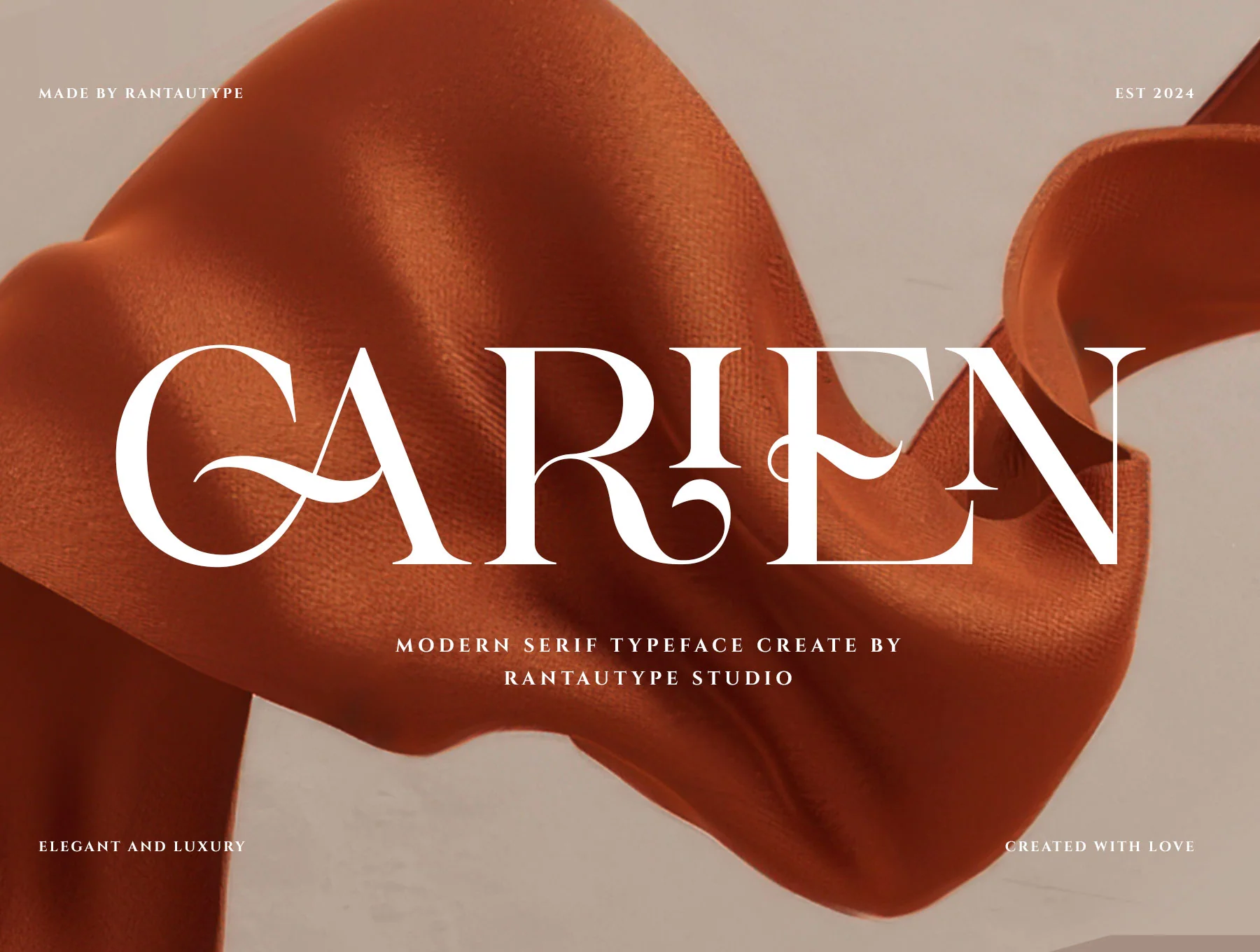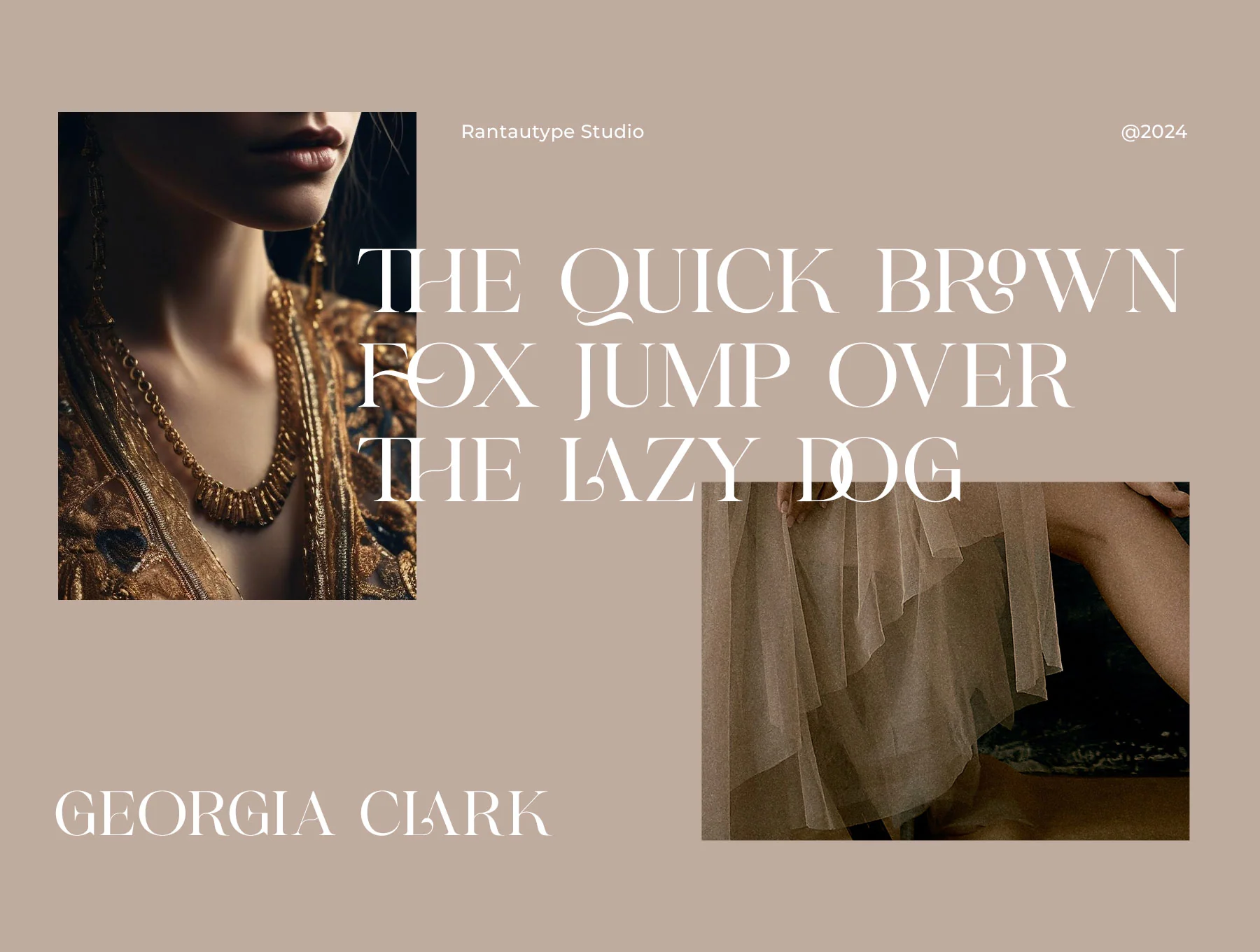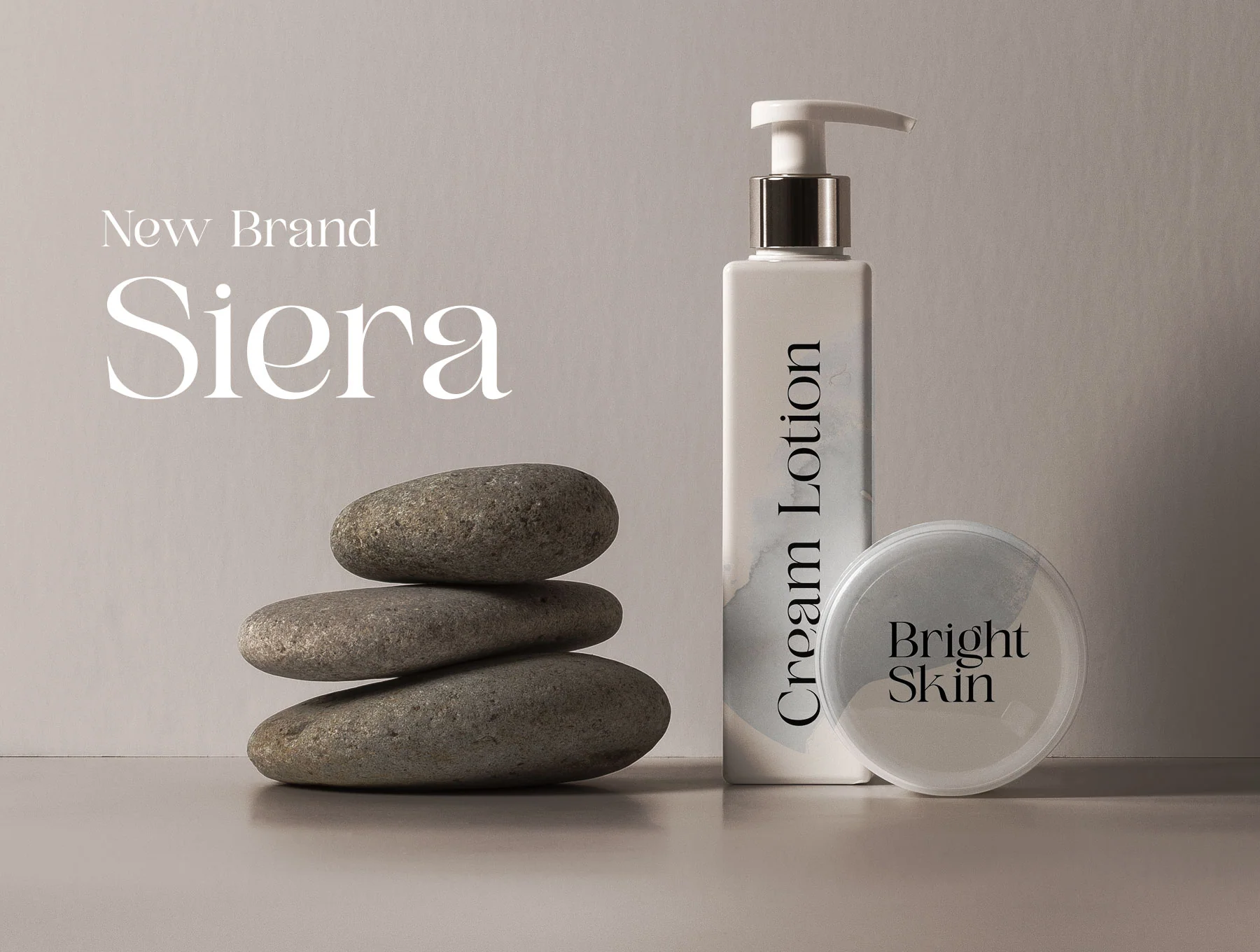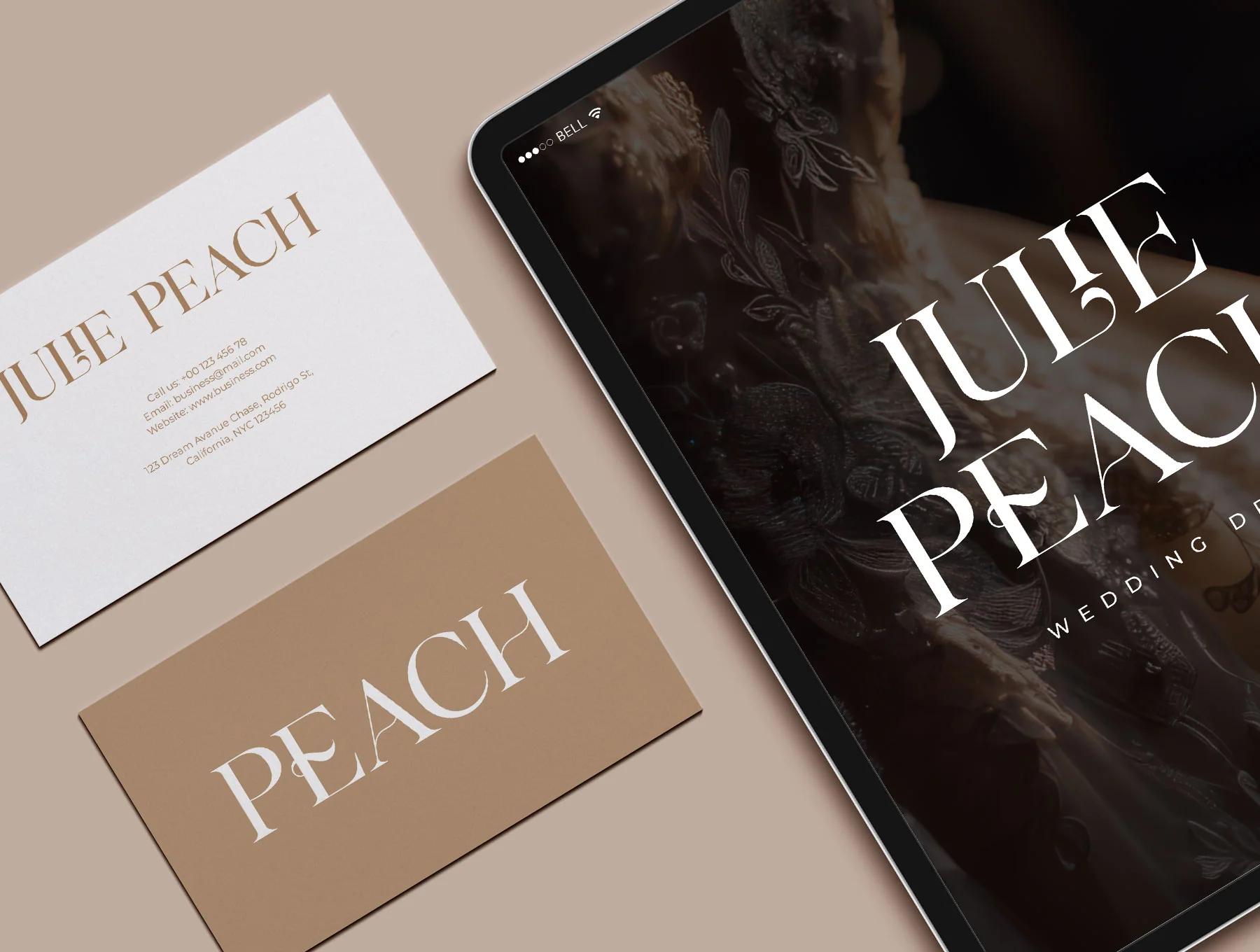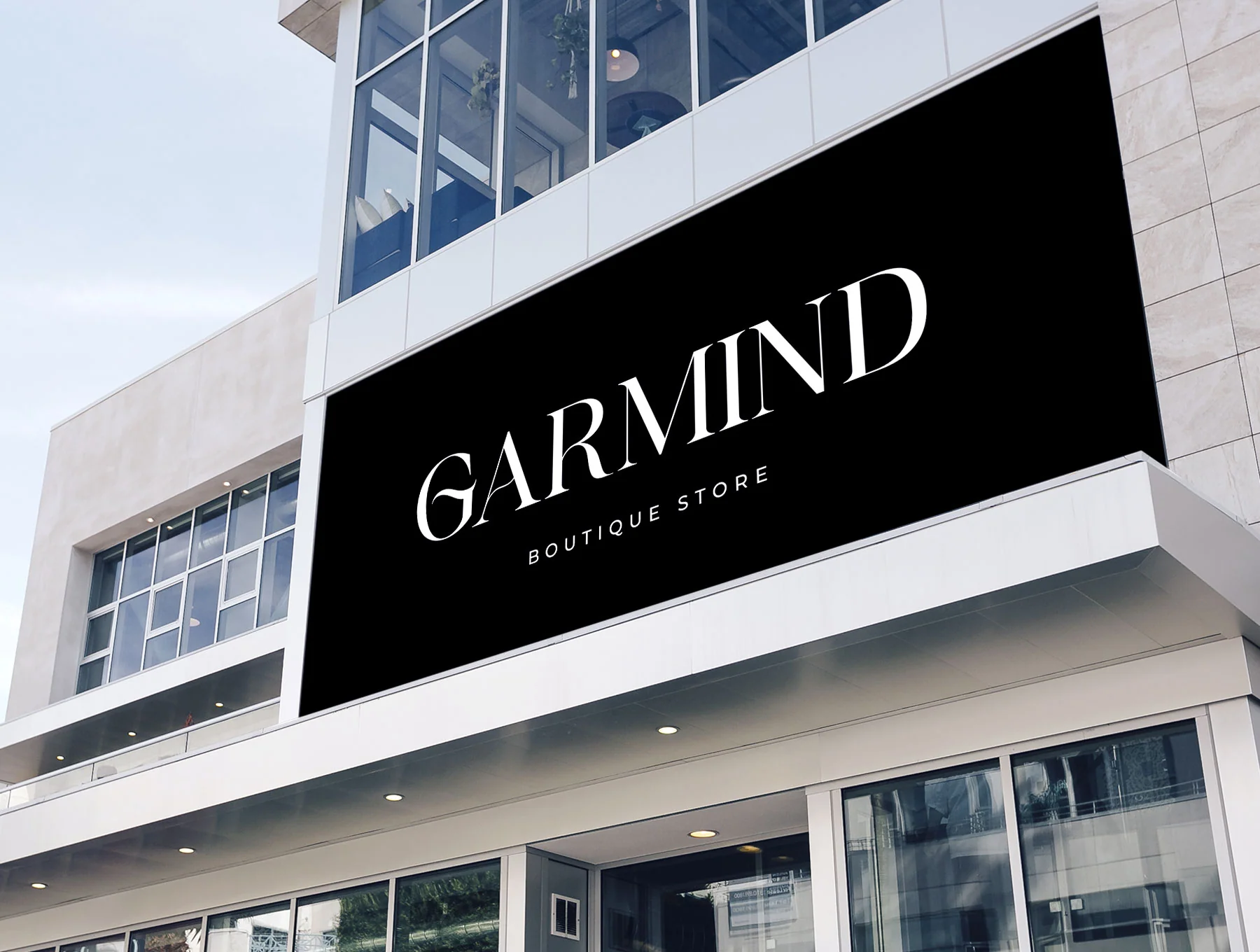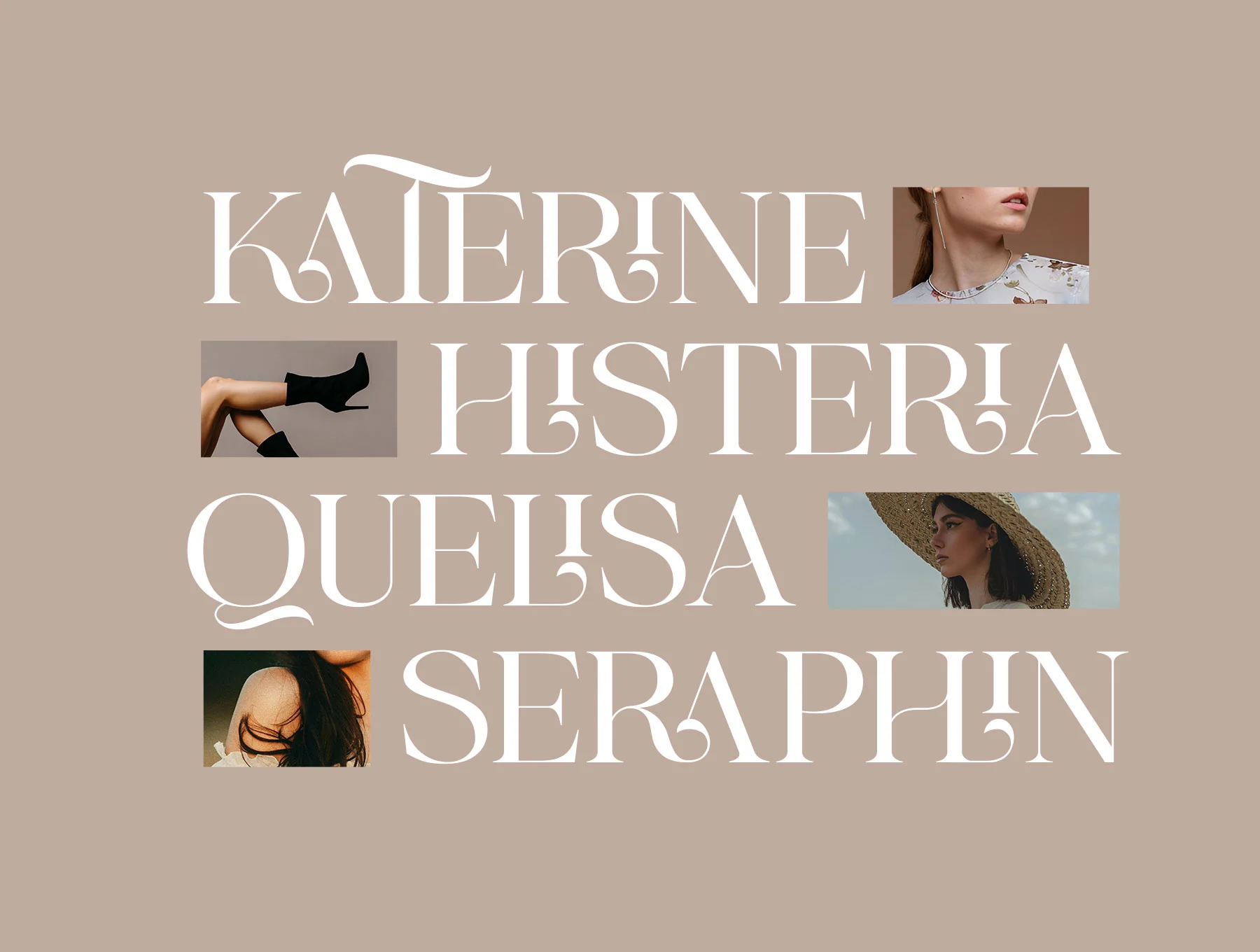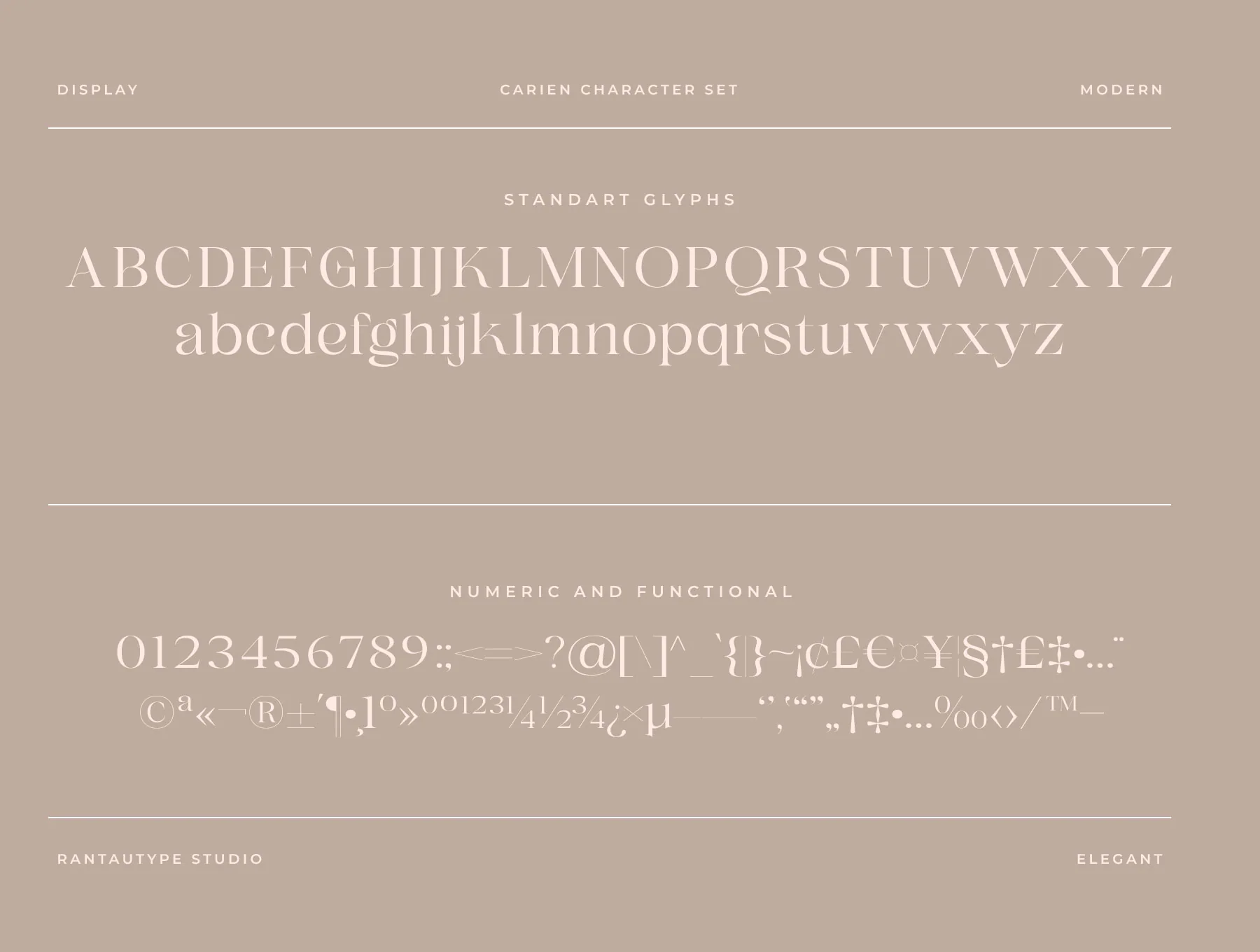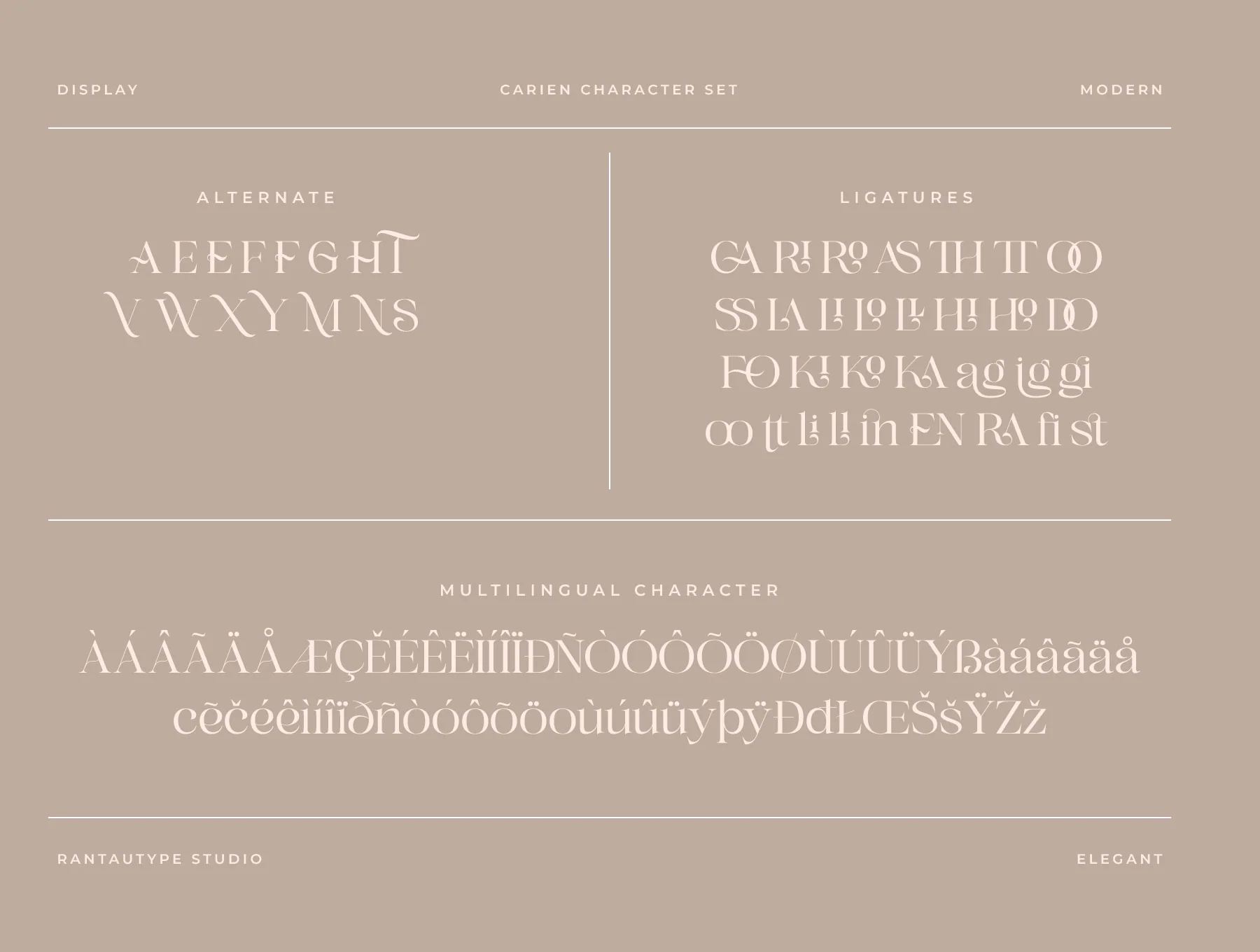
Carien A Modern Serif Font
Carien: contemporary serif typeface
Alternates plus ligatures
Carien is a contemporary feminine display serif with graceful curves and polished details, ideal for elegant logos, branding, ads, stationery, invitations, magazines, labels, products, and more. Includes Fergina in OTF, TTF, and WOFF, standard glyphs, numerals, alternates, ligatures, multilingual support, easy install, and works on PC/Mac with Adobe apps and Microsoft Word.